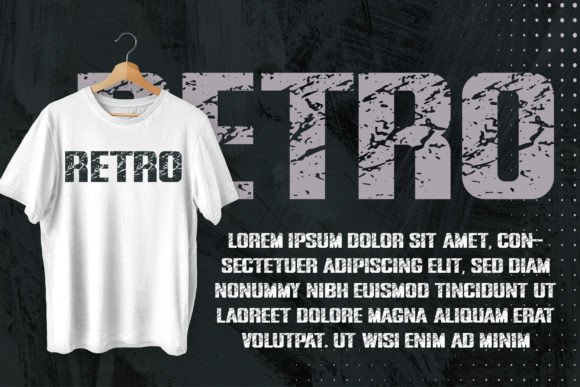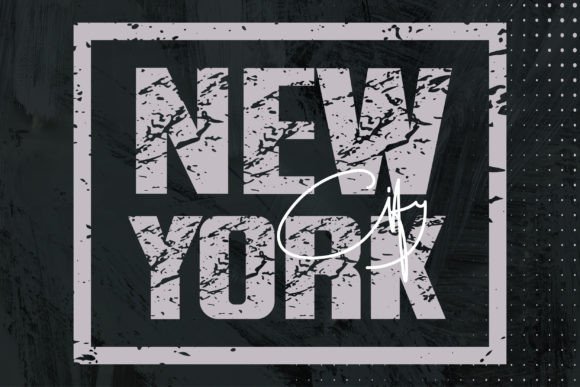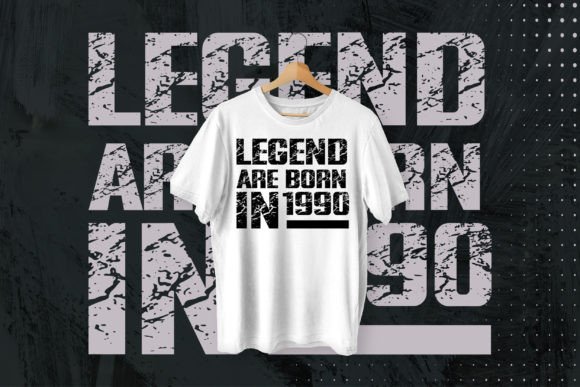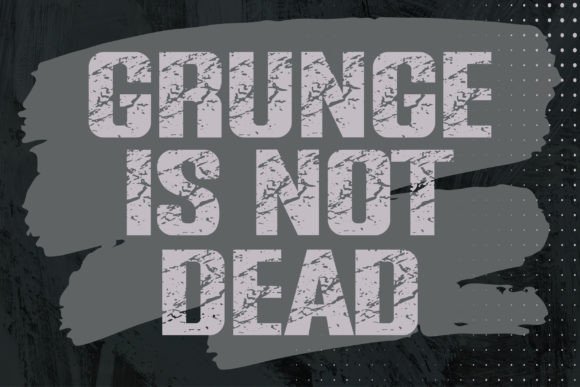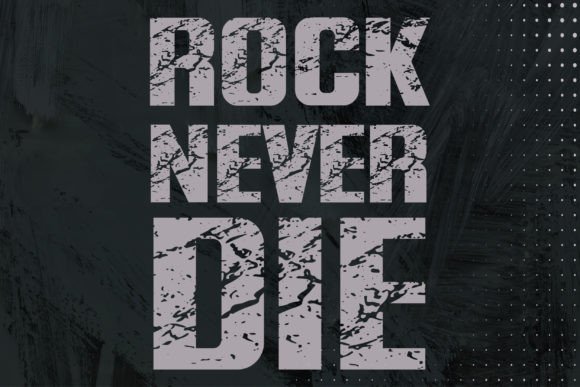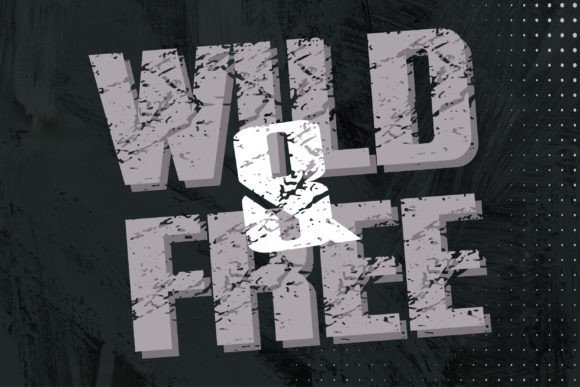
Unleash Your Creativity with Dark Grunge Font: The Ultimate Display Font for Bold Designs
In the world of typography, fonts play a crucial role in conveying the tone and personality of a design. When it comes to creating bold and eye-catching visuals, a distinctive display font can make all the difference. This is where Dark Grunge comes in – a unique and edgy font that exudes coolness and is perfect for designers and crafters looking to elevate their creations.
What is Dark Grunge Font?
Dark Grunge is a bold and daring display font that is designed to make a statement. With its old-school charm and audacious demeanor, this font is perfect for designs that require a strong and confident look. Whether you’re working on a campus aesthetic project, a sports-themed visual, or simply want to add some edge to your design, Dark Grunge is the perfect choice.
Key Features of Dark Grunge Font
- Unique and Edgy Design: Dark Grunge boasts a distinctive design that sets it apart from other fonts. Its bold and daring look makes it perfect for designs that require a strong statement.
- Campus Aesthetics: The font’s old-school charm makes it a perfect fit for campus aesthetics, including posters, flyers, and social media graphics.
- Sports-Themed Visuals: Dark Grunge is also ideal for sports-themed visuals, such as team logos, jerseys, and sports equipment designs.
- Versatility: This font can be used for a wide range of design projects, from branding and advertising to packaging and more.
Why Choose Dark Grunge Font?
So, why should you choose Dark Grunge for your design projects? Here are just a few reasons:
- Adds Edge to Your Design: Dark Grunge adds a bold and daring touch to your design, making it perfect for projects that require a strong statement.
- Old-School Charm: The font’s unique design has an old-school charm that is sure to appeal to designers and crafters looking for a retro look.
- High-Quality Design: Dark Grunge is designed with high-quality and precision, ensuring that your designs look professional and polished.
How to Use Dark Grunge Font
Using Dark Grunge font is easy and straightforward. Here are a few tips to get you started:
- Pair with Other Fonts: Dark Grunge pairs well with other fonts, including sans-serif and script fonts. Experiment with different combinations to find the perfect look for your design.
- Use for Headings and Titles: The font’s bold design makes it perfect for headings and titles. Use it to add a strong statement to your design.
- Experiment with Colors: Dark Grunge looks great in a variety of colors, from bold and bright to muted and subtle. Experiment with different colors to find the perfect look for your design.
Dark Grunge font is a unique and edgy display font that is perfect for designers and crafters looking to add a bold and daring touch to their designs. With its old-school charm and audacious demeanor, this font is sure to elevate the caliber of your creations. Whether you’re working on a campus aesthetic project, a sports-themed visual, or simply want to add some edge to your design, Dark Grunge is the perfect choice.